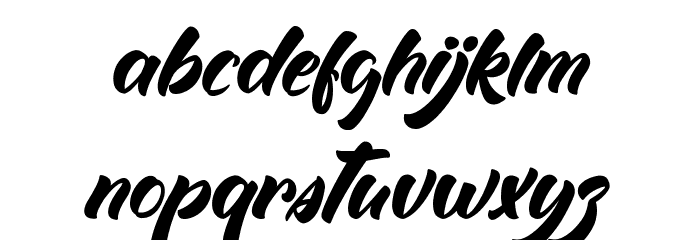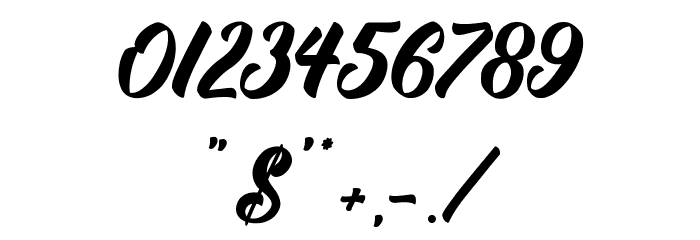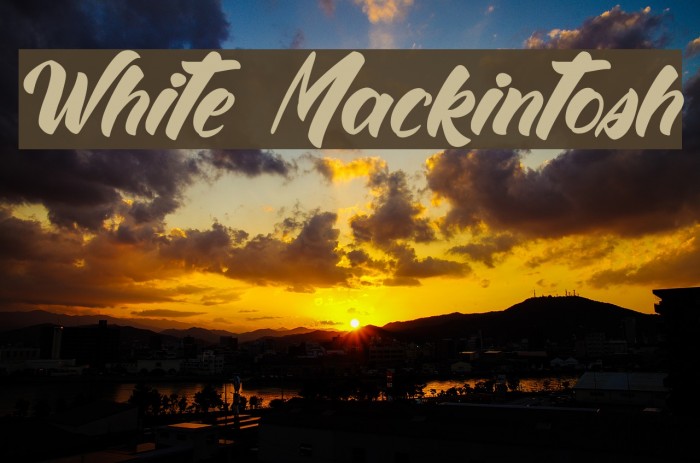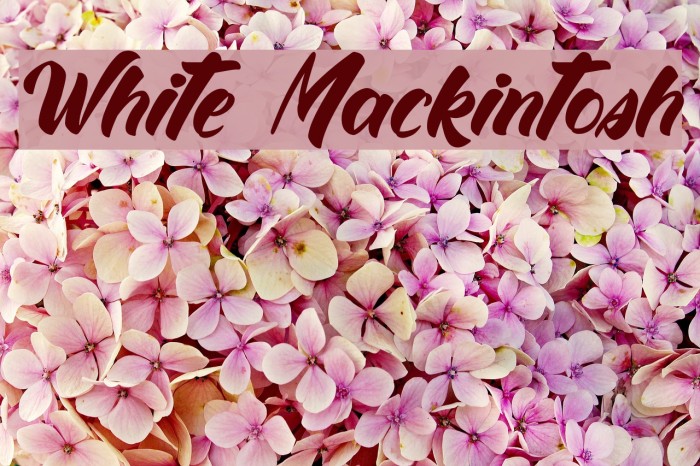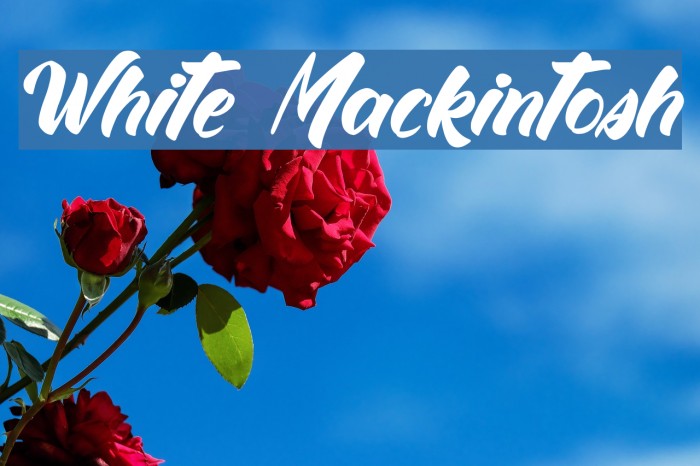
White Mackintosh Font
This font exhibits a bold and expressive script style, characterized by its flowing and dynamic strokes. The uppercase letters are particularly striking, with exaggerated curves and a sense of movement that suggests a handwritten touch. The lowercase letters maintain this fluidity, offering a harmonious balance between elegance and readability. Numbers and special characters are crafted with the same attention to detail, ensuring consistency across all glyphs. The overall appearance is both artistic and legible, making it suitable for a variety of creative applications.
A bold, expressive script font with dynamic, flowing strokes.
- Proposed Projects: Ideal for branding, invitations, greeting cards, and artistic projects that require a personal touch.
- Category: Script
- Use Case: Logos, Headlines, Invitations